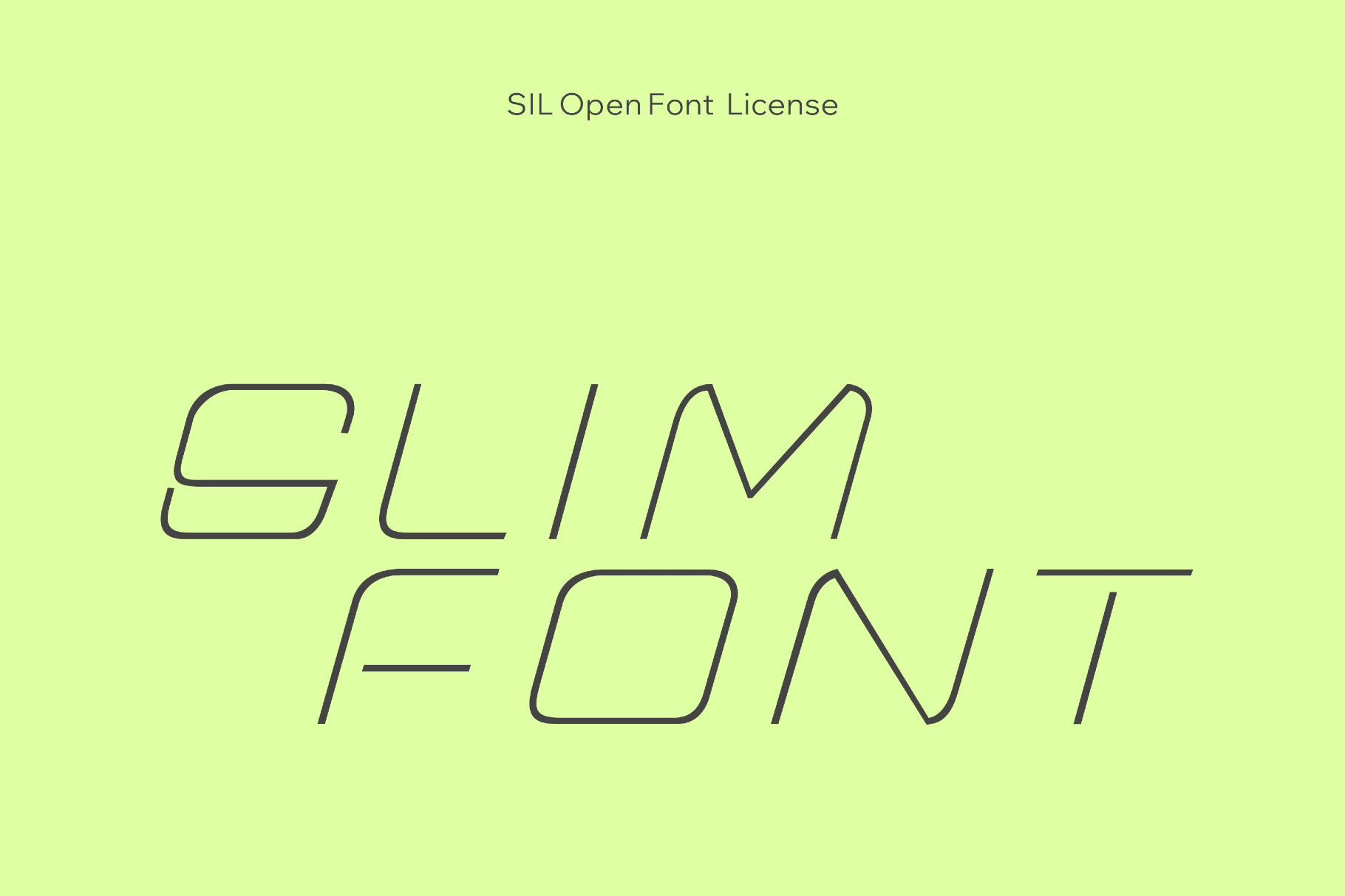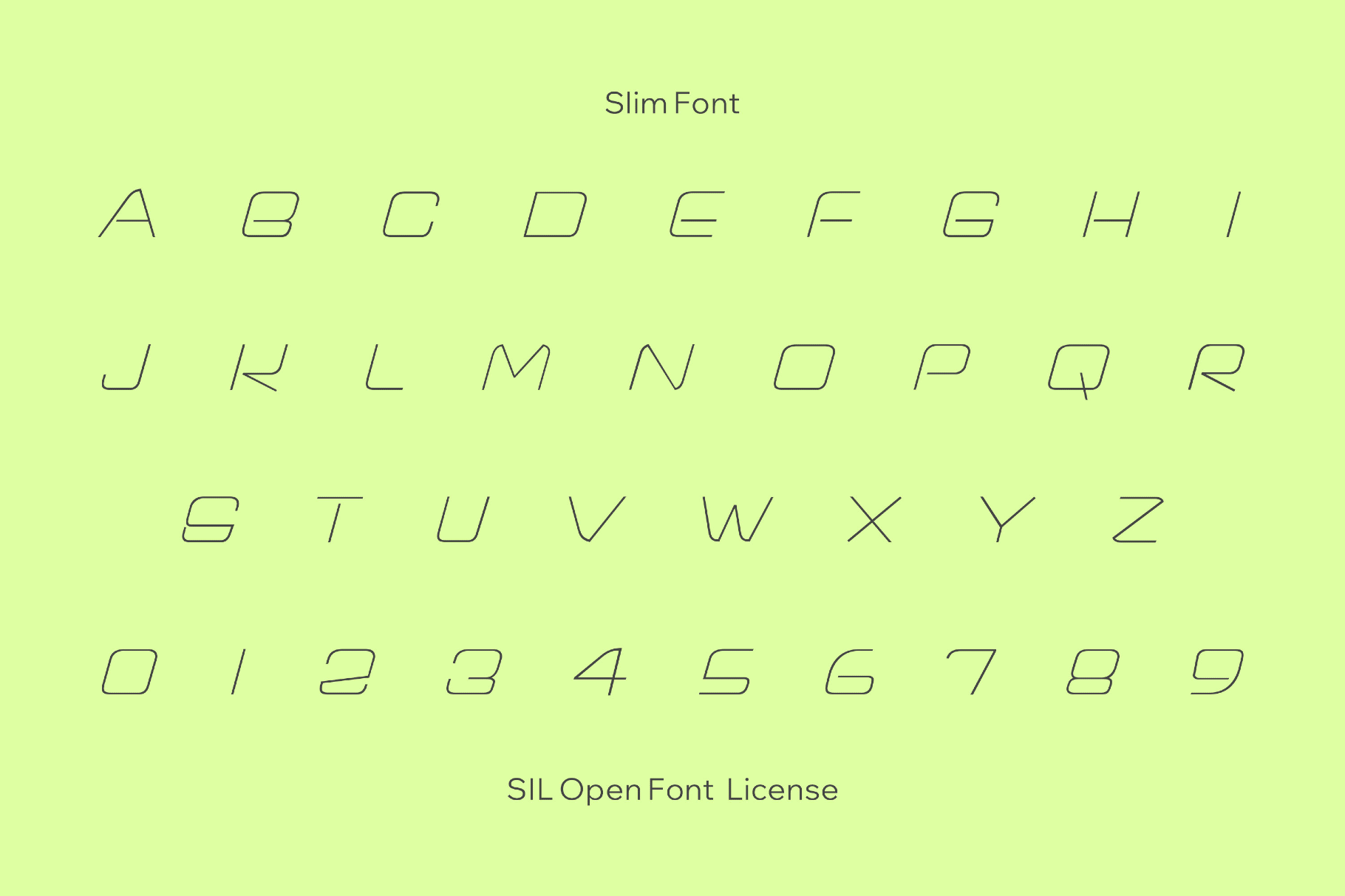
Slim Tech Font
Slim recalls the sleek restraint of late-1960s space-age branding and Japanese capsule-era graphics, with thin, wide forms — bold enough to stand out, but friendly enough to keep the layout open and inviting. It fits logo systems, poster titles, fashion editorials, album sleeves, interface concepts, packaging, editorial headers, and motion graphics.